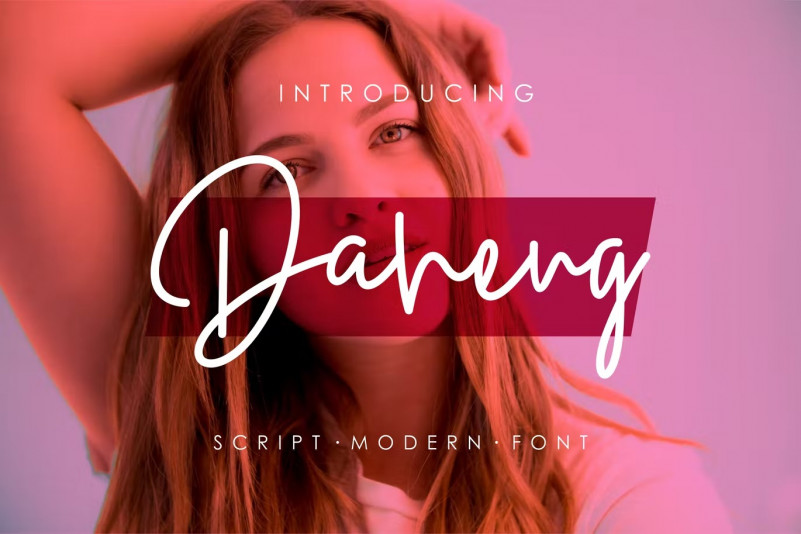
Daheng Font
Introducing our new product Daheng Font – Modern Font
Daheng Font – Modern Font is a bold and authentic display font. The font is suitable for any branding project like logo, t-shirt printing, Feminine, and many more. outstanding in a wide range of contexts.